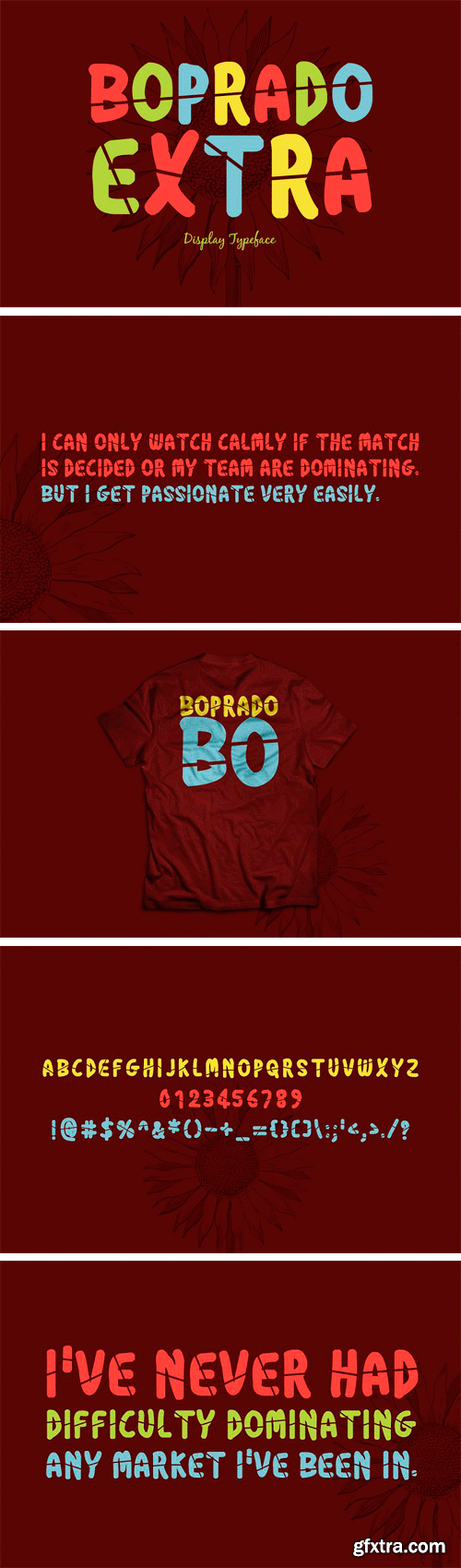
Boprado Extra is a brand new display font. Boprado Extra is perfectly suited for stationery, logos, t-shirt, paper, print design, website header, photo frame, flyer, music cover, poster, image slider and much more.